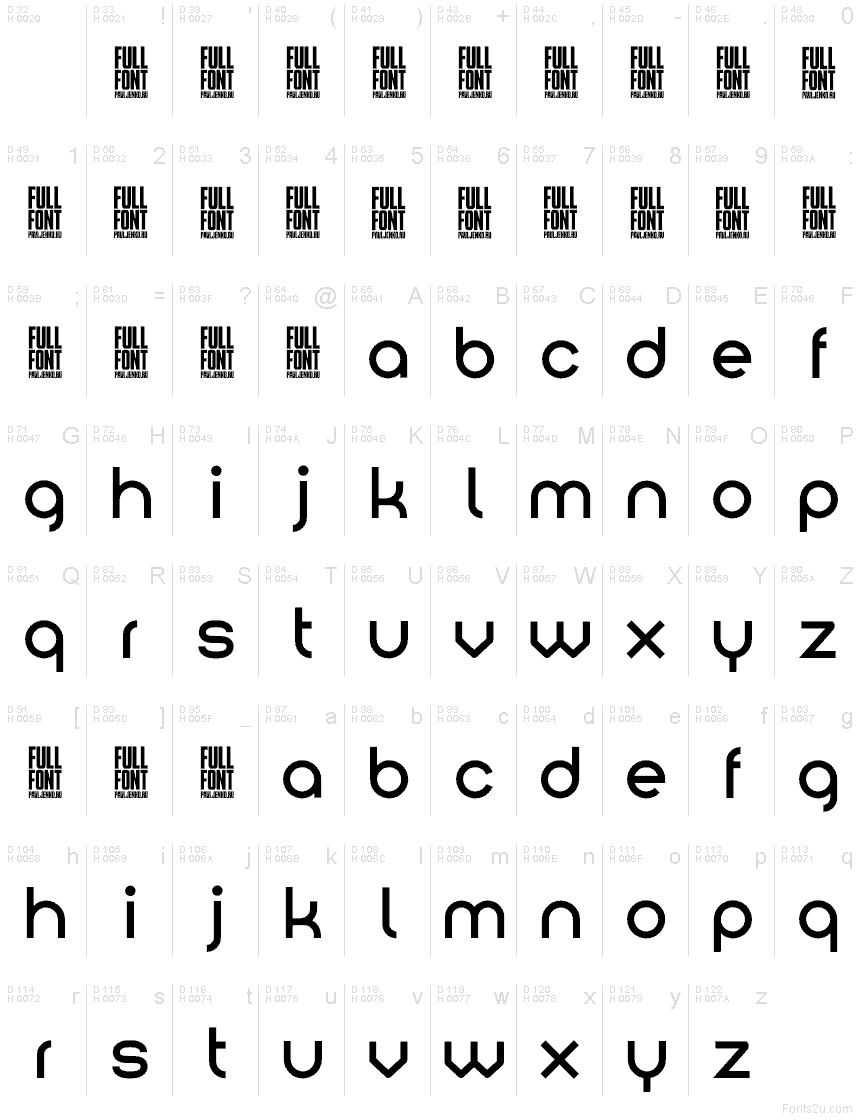
Unifix SP Demo
Unifix SP font by Sasha Pavljenko is a sleek, modern typeface that stands out with its clean geometric lines and minimalist design. This contemporary display font offers a unique combination of elegance and clarity, making it visually appealing for various design projects.
The typeface was developed under the influence of Bauhaus and Herbert Bayer’s ideas on a universal type and democratic writing — free from hierarchies and unified to a level that ensures character distinction without complexity.